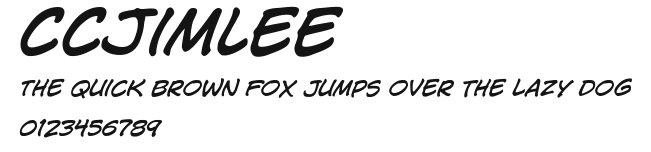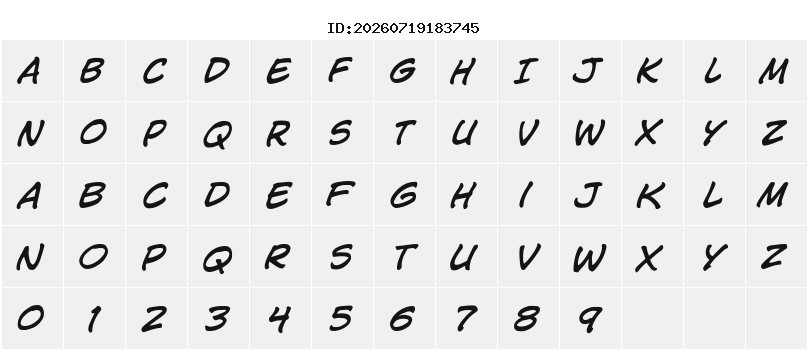
CCJimLee Preview
• Font Name: CCJimLee
• Font Style: Medium Italic
• Full Font Name: CCJimLee-Italic
• PostScript Name: CCJimLee-Italic
About CCJimLee.ttf
CCJimLee.ttf is a modern, elegant sans-serif font designed for ultimate readability and visual harmony. Perfect for branding, headlines, web design, and print materials.